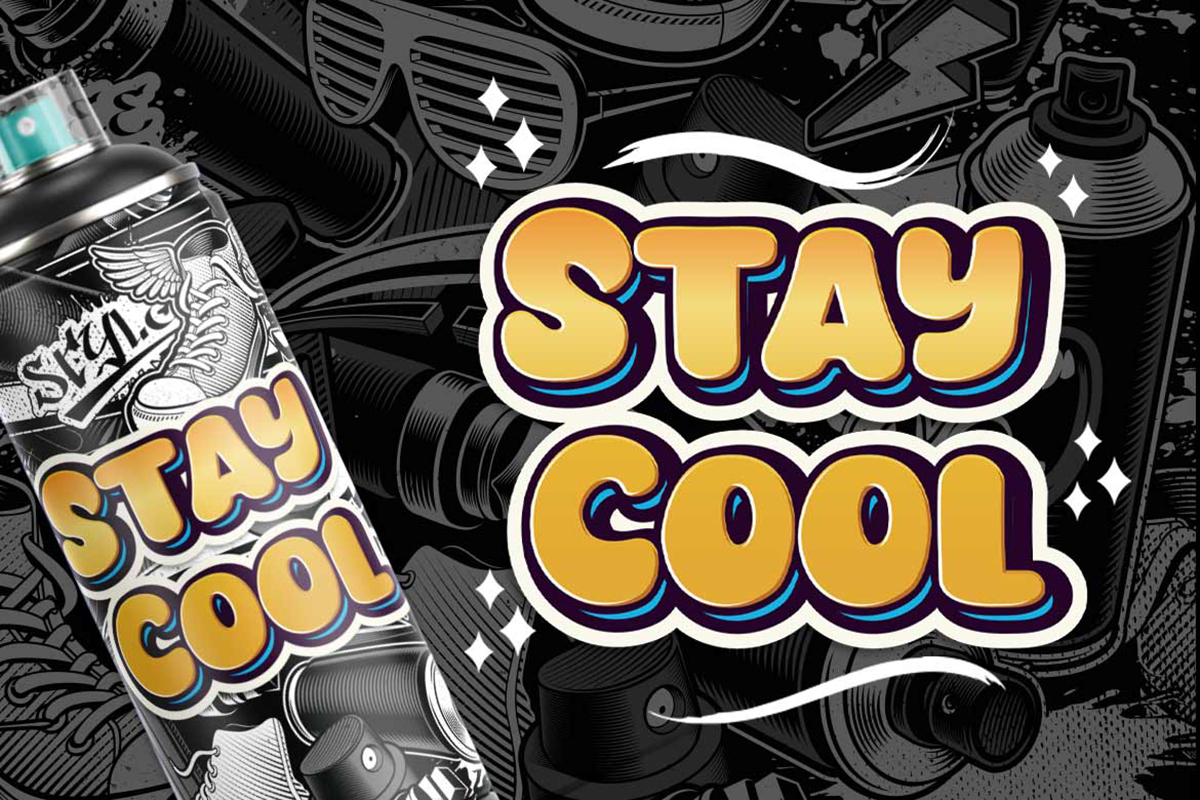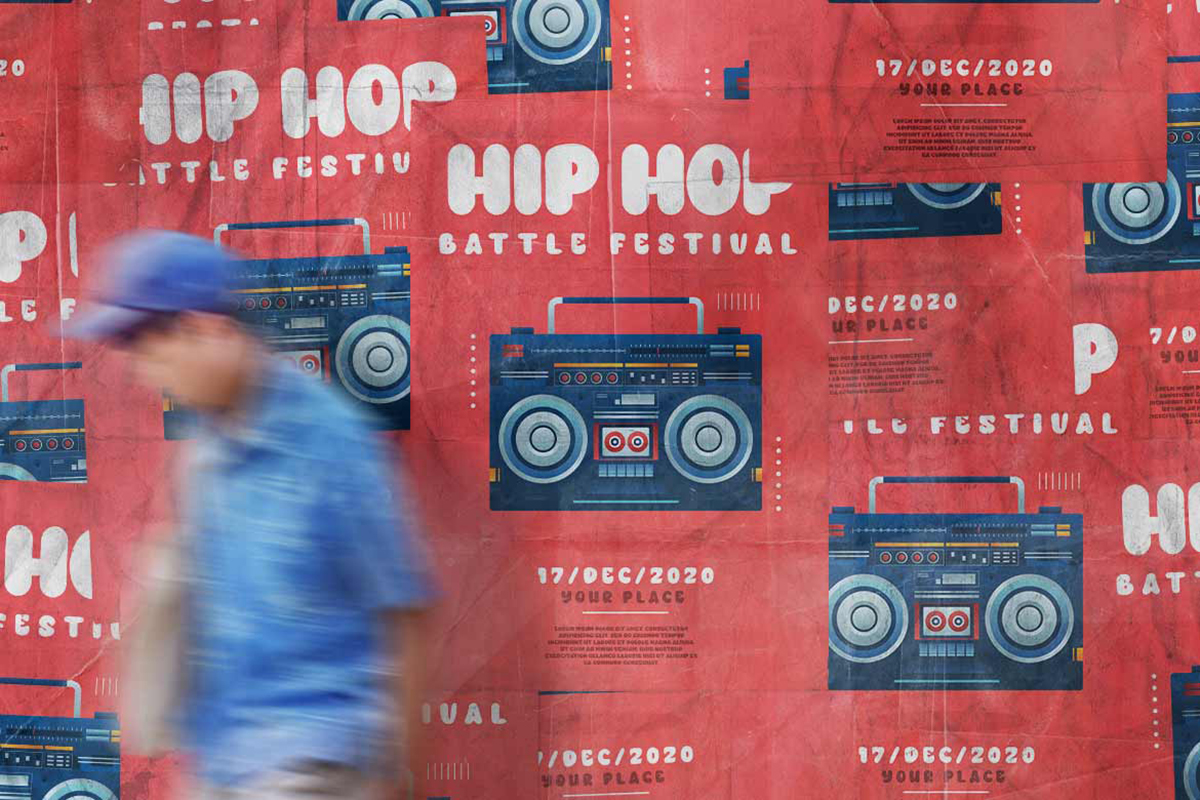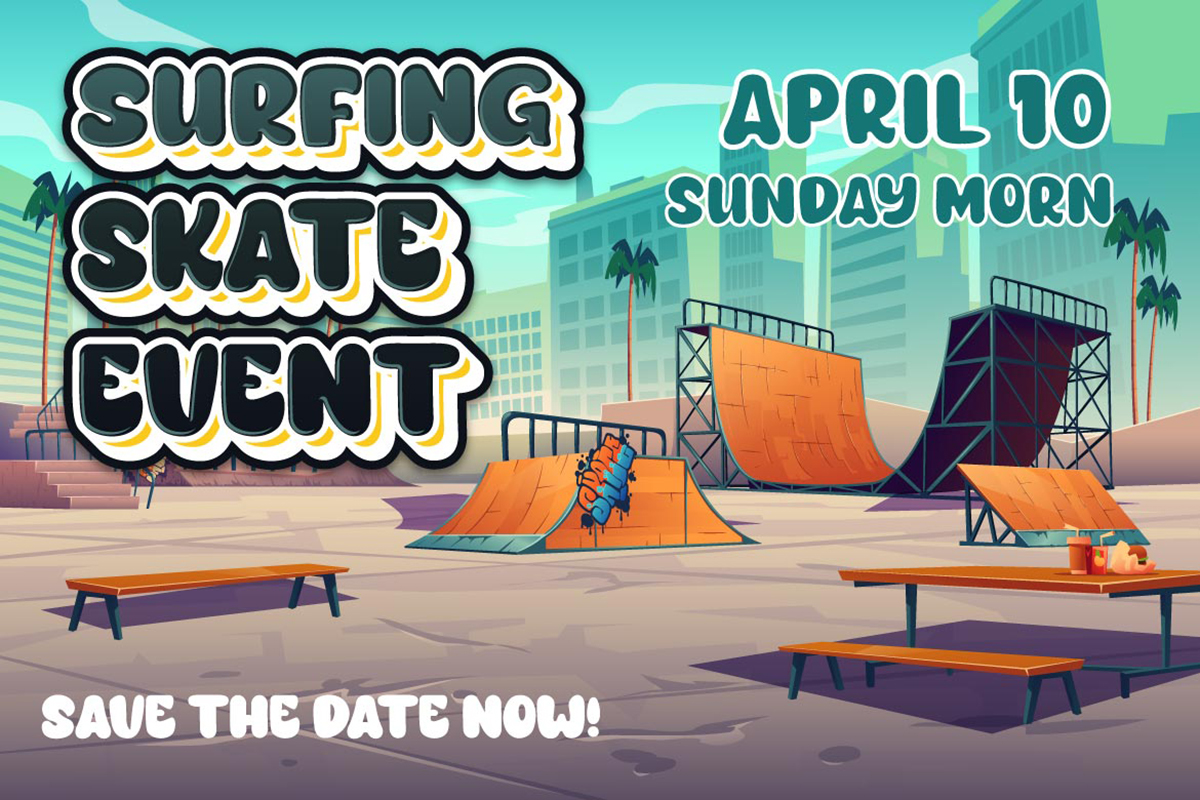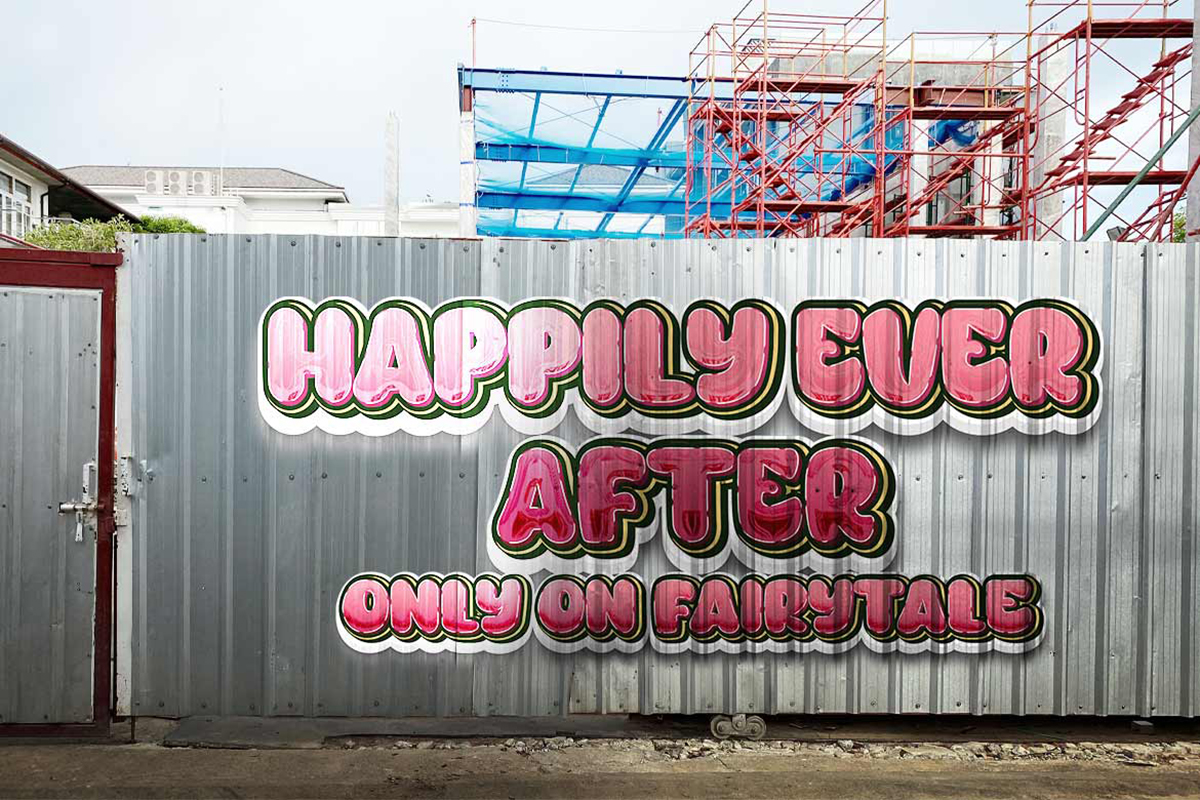
Judger Free Font
Judger Free Font is a graffiti-inspired display font featuring bold, thick lettering. It’s an excellent choice for various design applications, including t-shirts, sportswear, logos, advertisements, clothing, and more. This free typeface was designed by a talented Twin Letter. If you like it don’t forget to check out the full version.